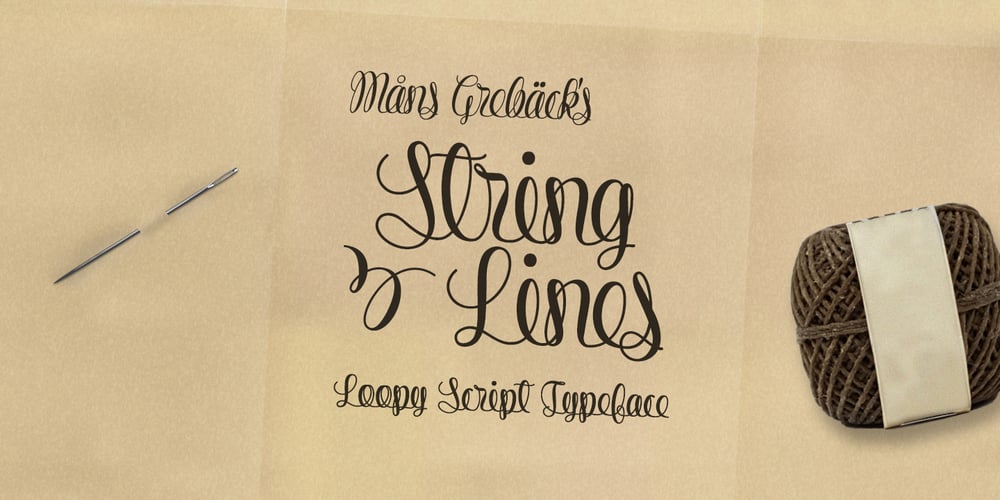
String Lines Font Family was designed by Måns Grebäck and published by Mans Greback. String Lines contains 1 styles and family package options. String Line is a loopy script typeface. Its elegant turns are connected to form spiral-like lettershapes. The typeface is designed by Måns Grebäck and supports many languages.